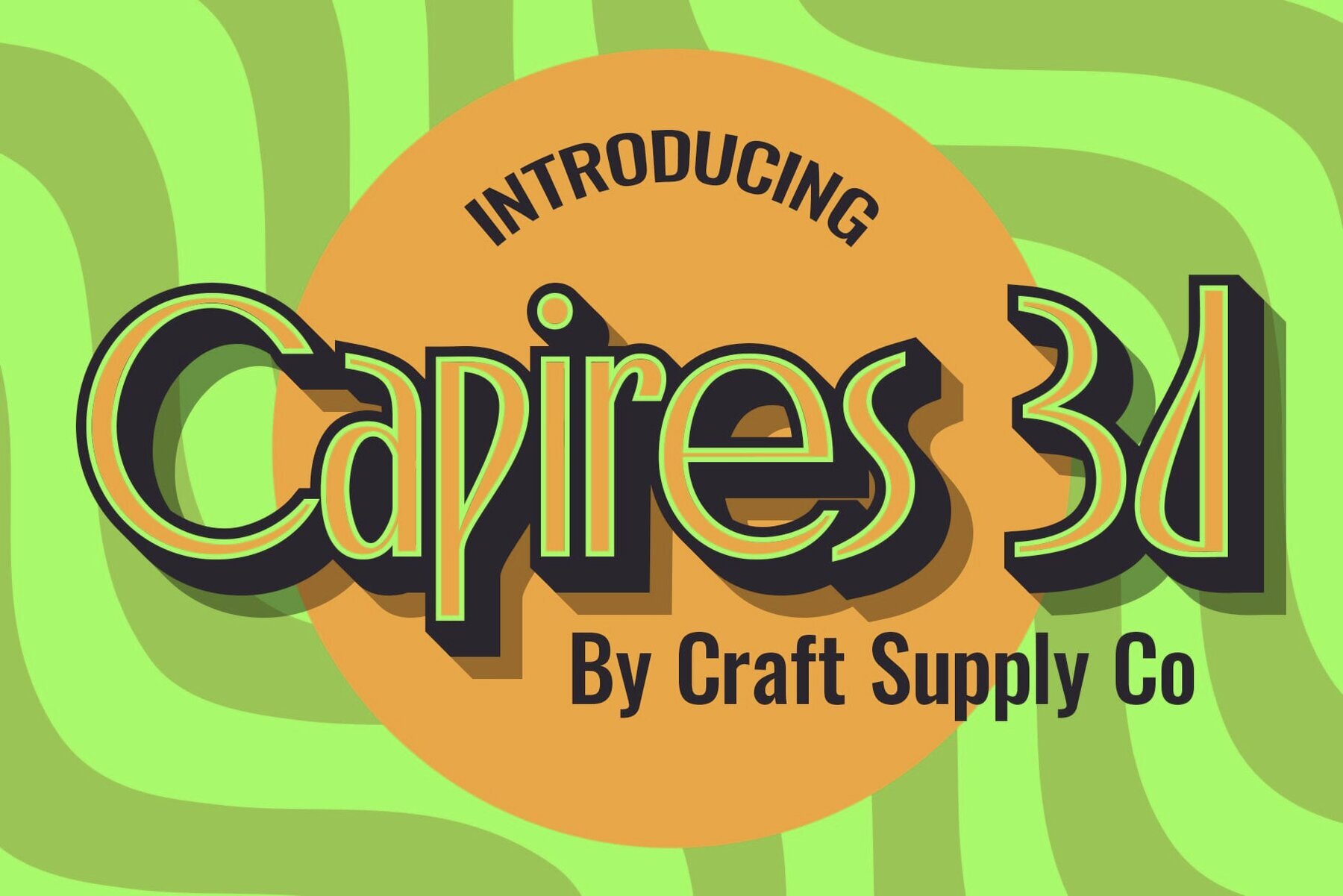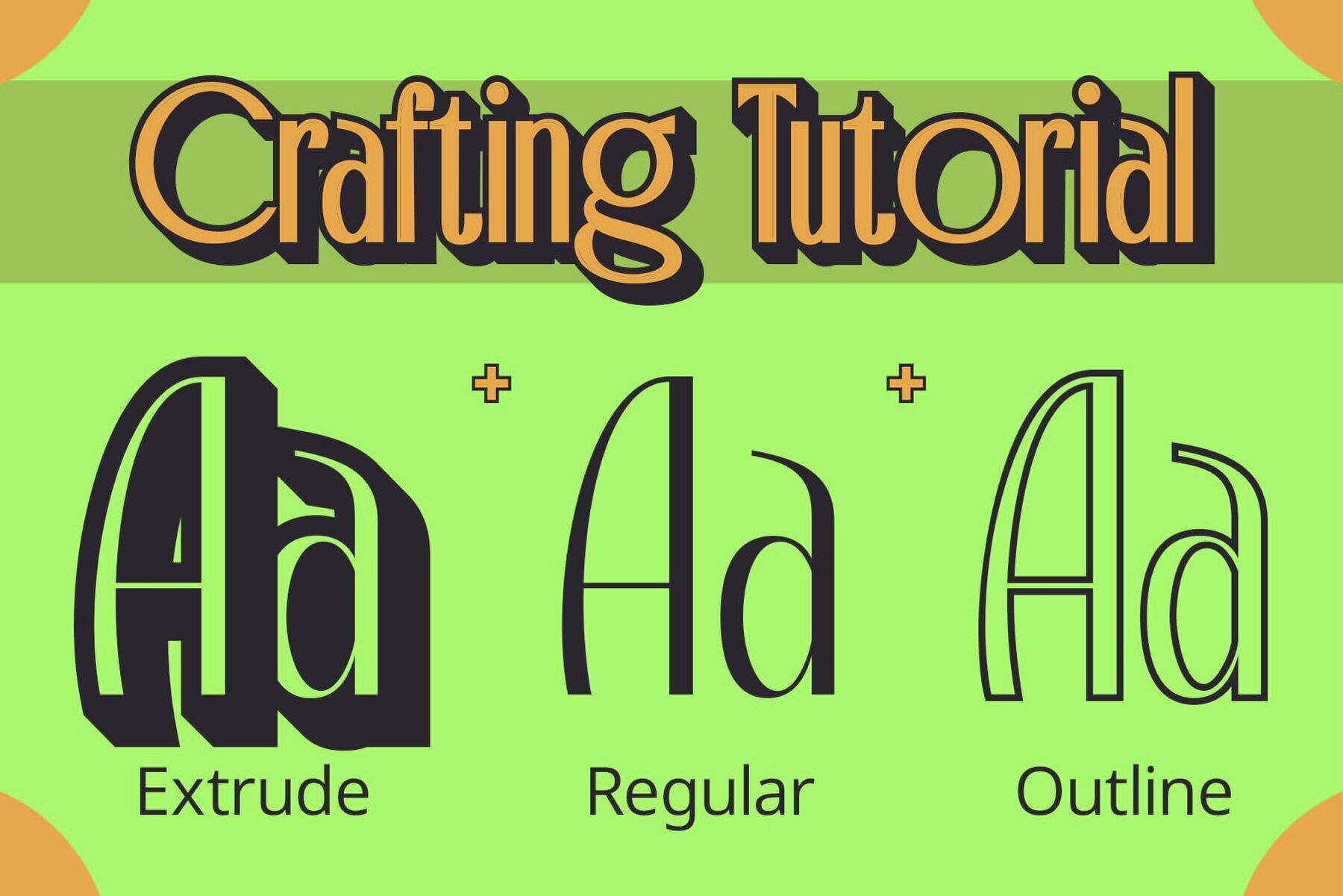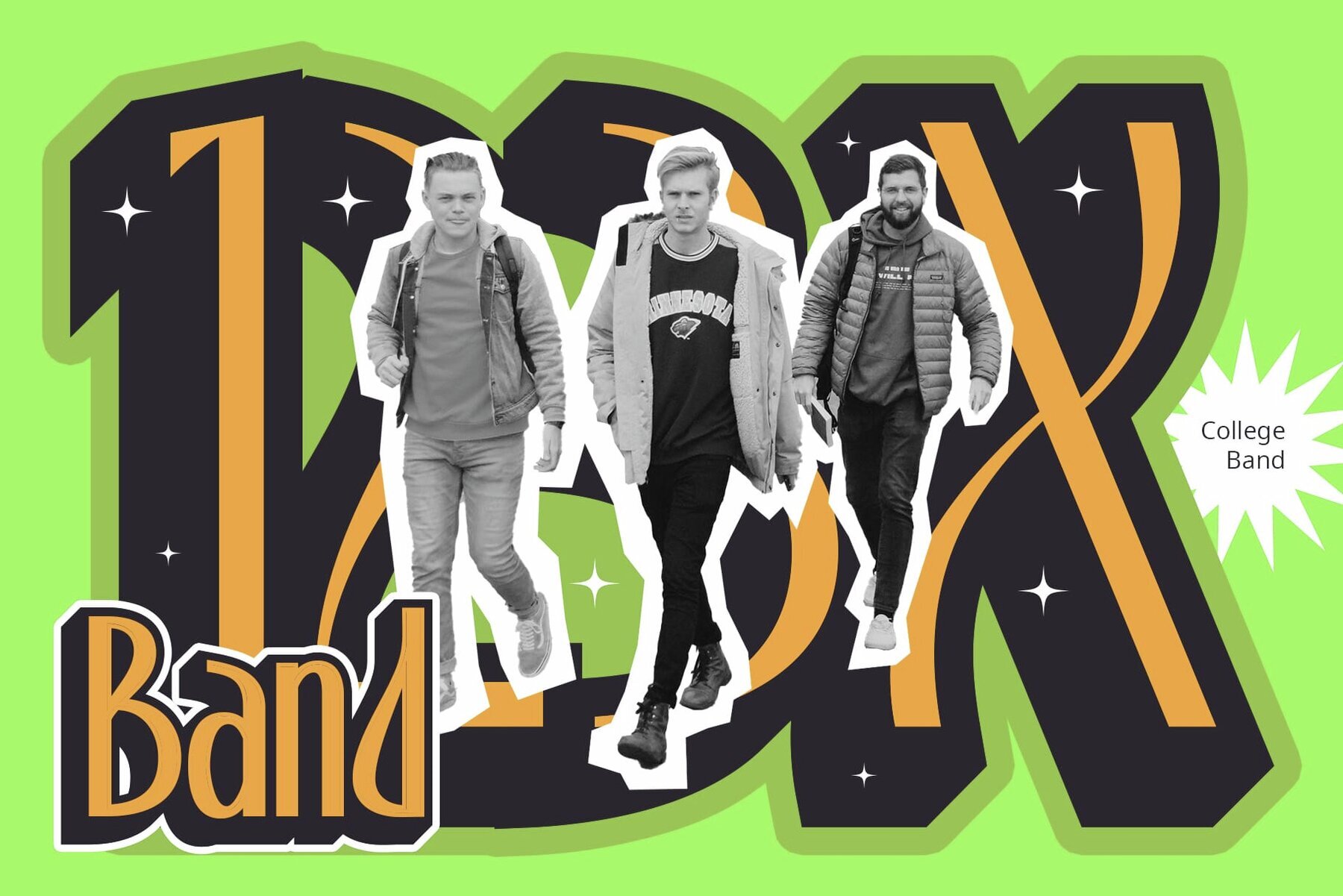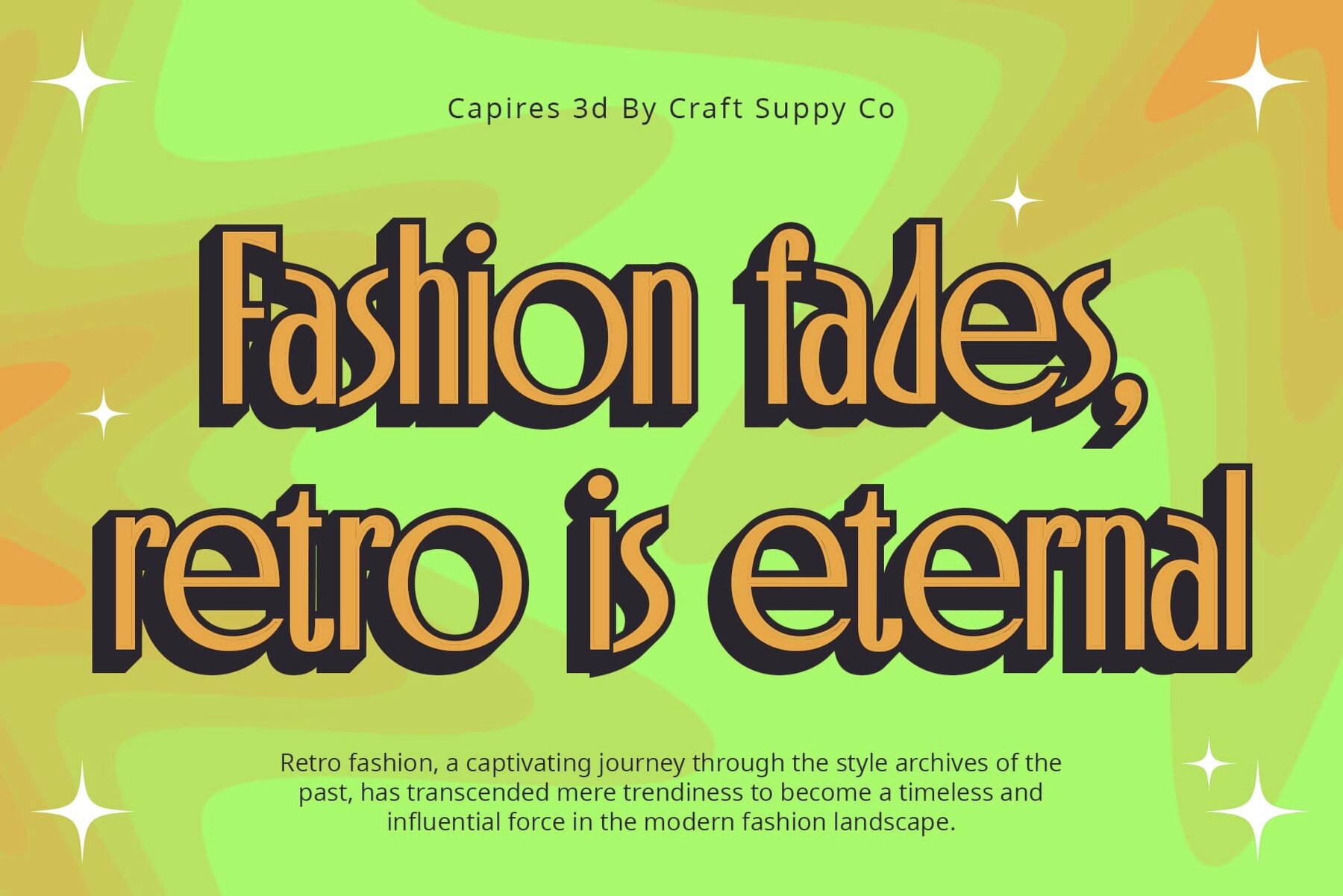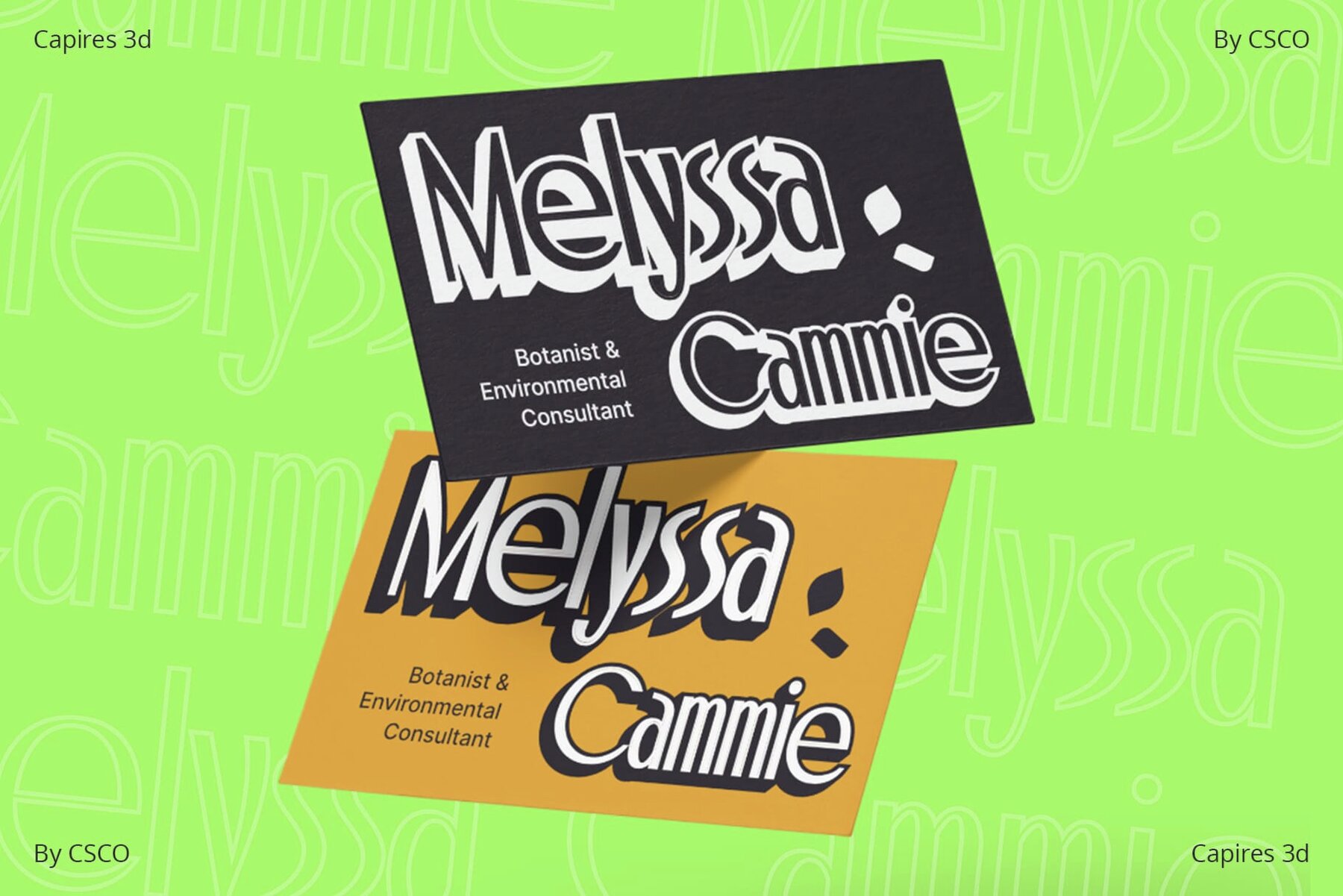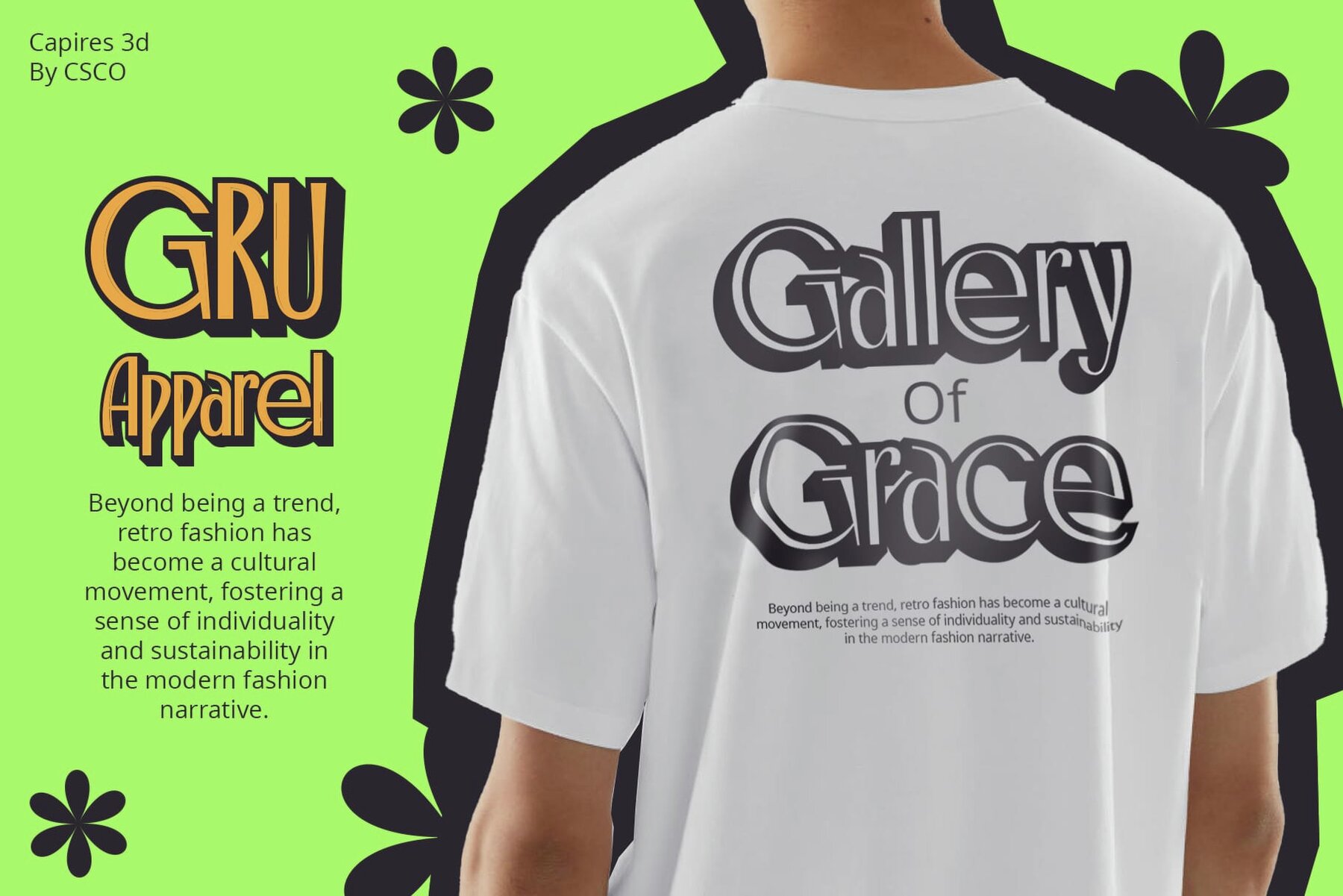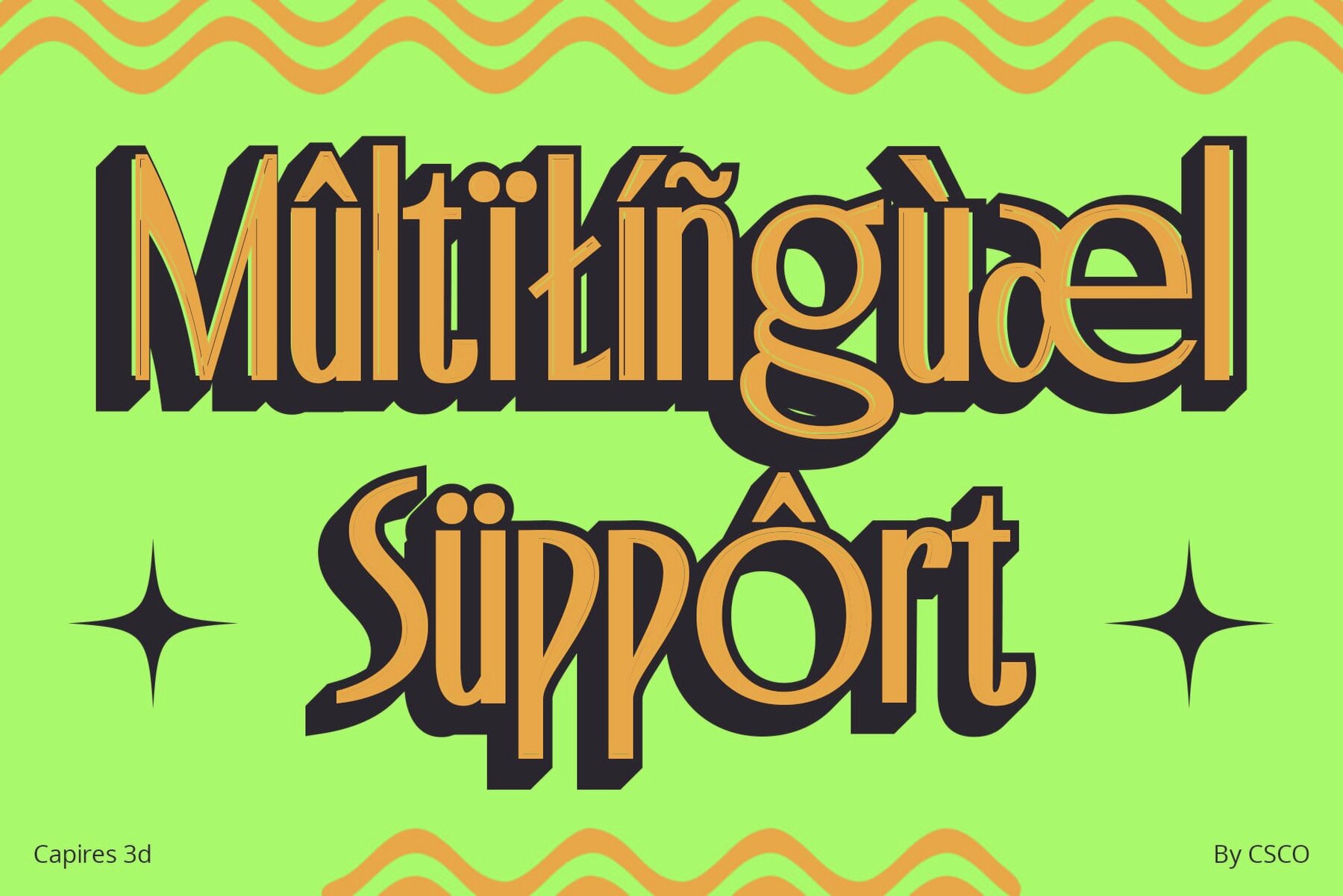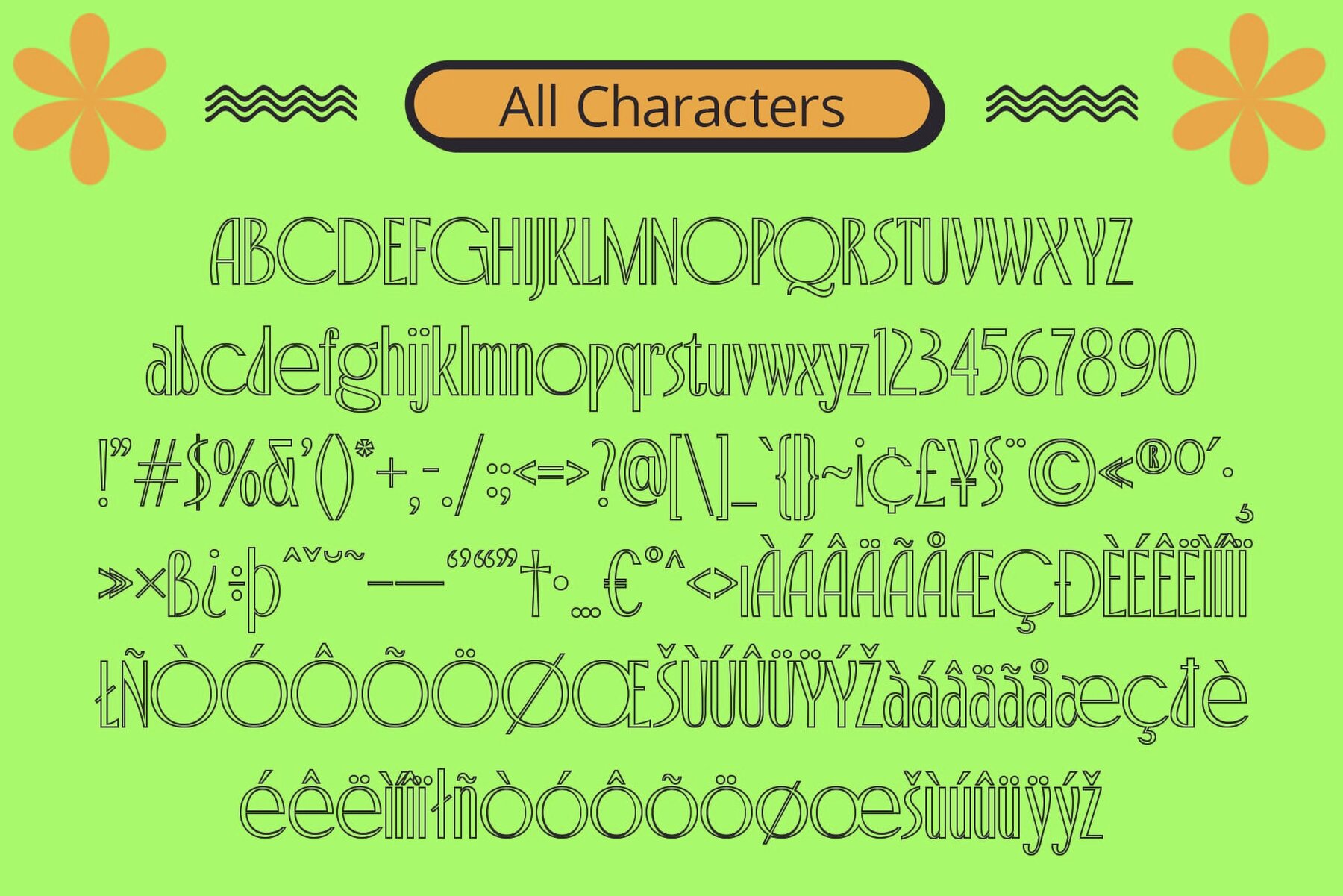
Capires 3D Font
The Capires 3D display font by Craft Supply Co. is a mesmerizing ode to Art Nouveau. It seamlessly blends its intricate, meandering shapes with a modern 3D twist. Each character in Capires 3D is a work of art. Inspired by Art Nouveau, the font showcases flowing lines and intricate details, capturing the essence of timeless elegance. Capires 3D introduces a new dimension to design. The 3D effect adds depth, bringing Art Nouveau-inspired curves to life in an enchanting and contemporary manner. Rooted in tradition, Capires 3D is versatile. It gracefully adapts to various design needs, from vintage-themed projects to modern layouts seeking a touch of Art Nouveau allure. Capires 3D is not just a font; it's a journey through time, combining the allure of Art Nouveau with the sophistication of contemporary design. Let your projects embrace the elegance of Capires 3D’s curves. You can use this typeface without needing any specialized software. If you have any inquiries or need assistance, please feel free to contact us. We appreciate your support in enhancing your creative projects!Capires 3D: Art Nouveau Resurrected
Sculpting Timeless Elegance
Elevated Aesthetics in 3D
Versatility Across Designs